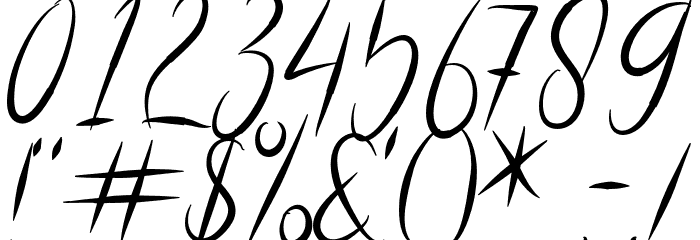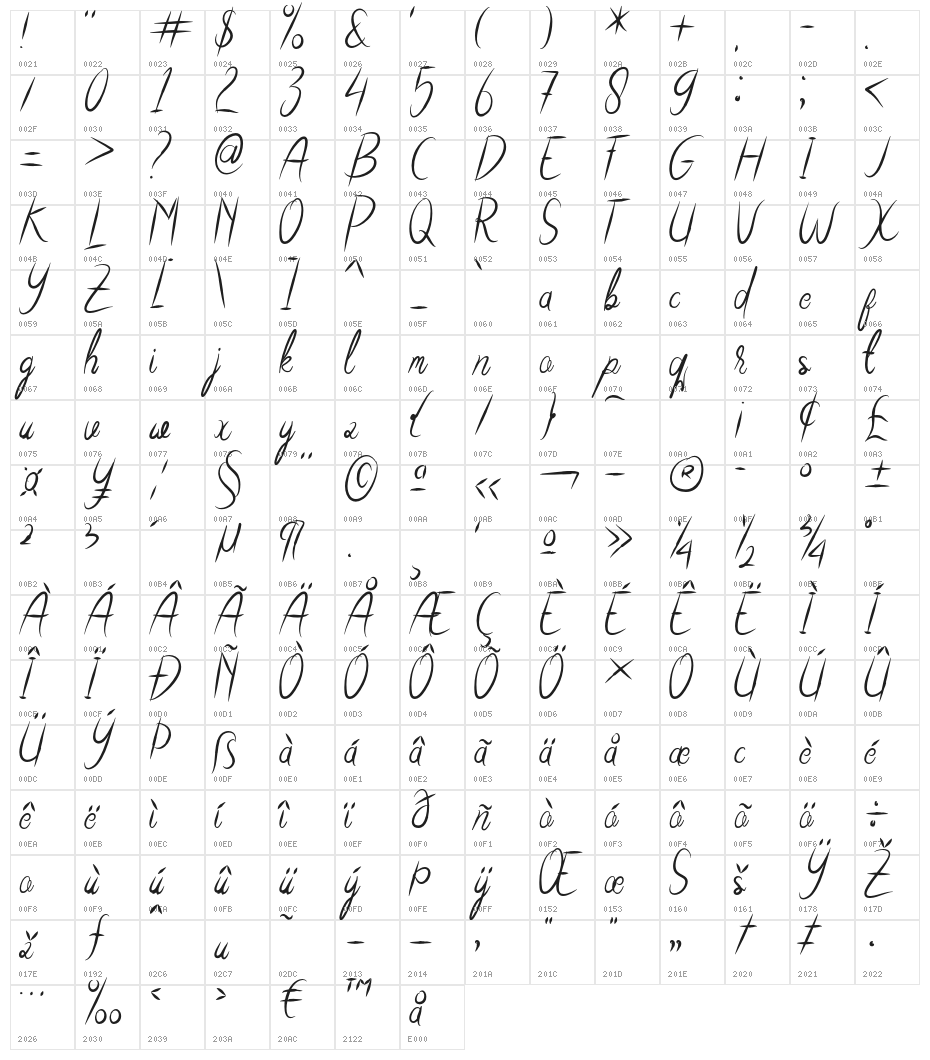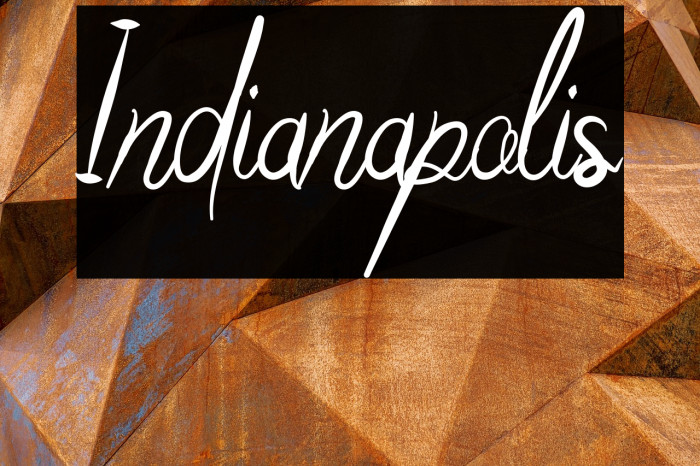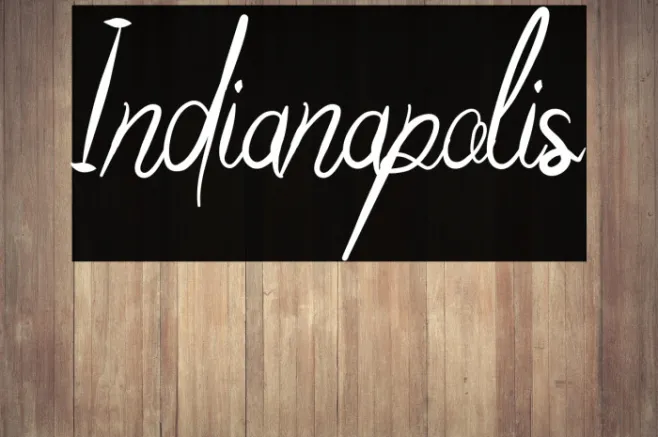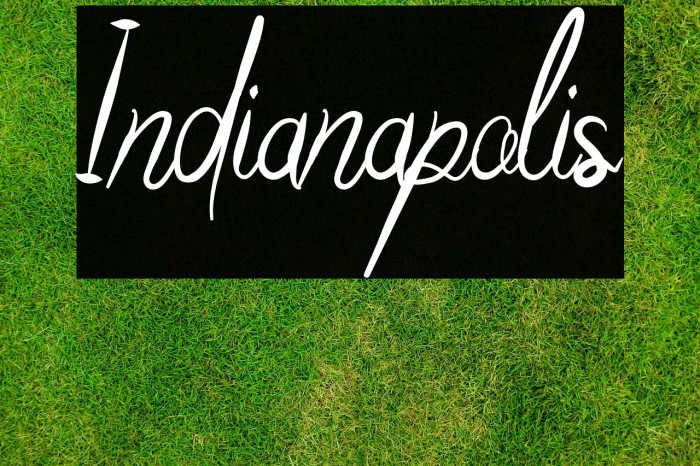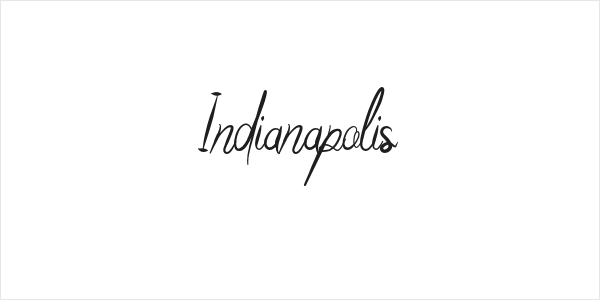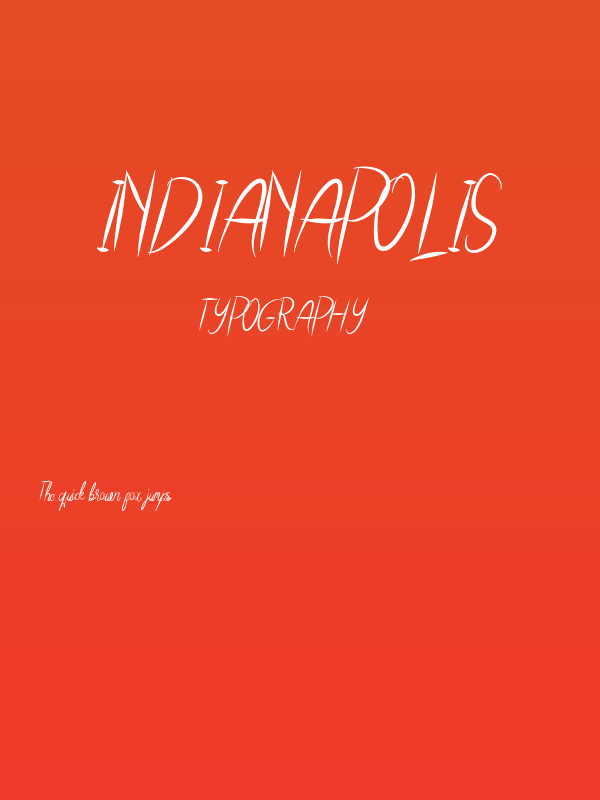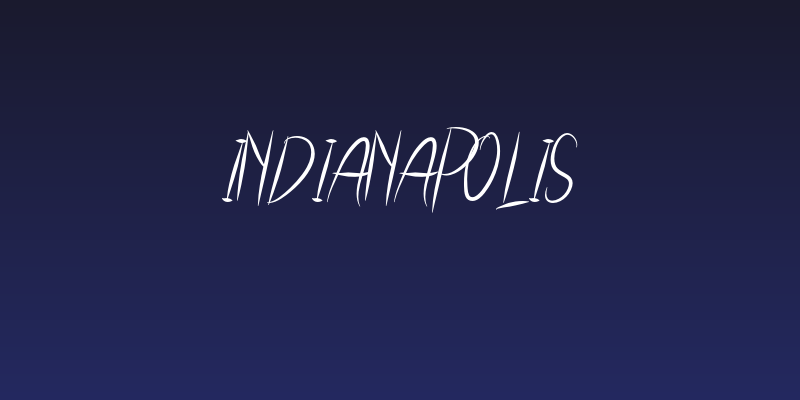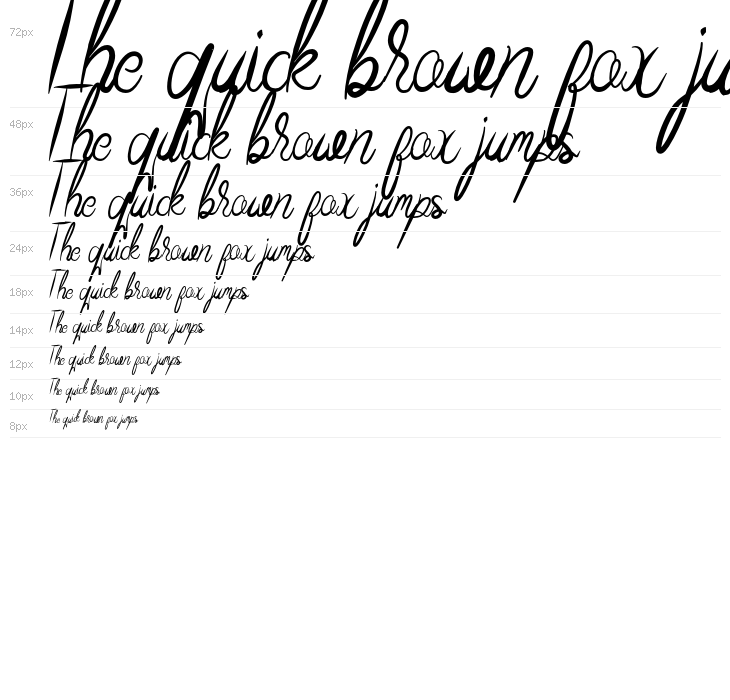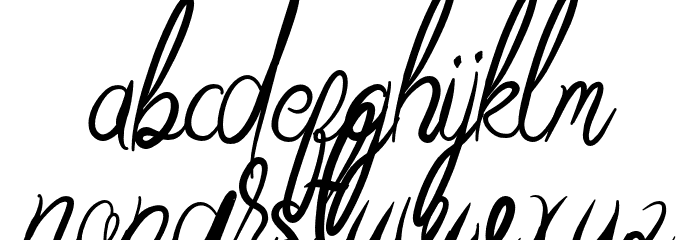
Indianapolis Font
Indianapolis Description
This font exhibits a flowing, cursive style with elegant, elongated strokes that give it a sophisticated and artistic appearance. The uppercase letters are tall and slender, with a slight slant that adds a dynamic feel. The lowercase letters maintain a consistent flow, connecting smoothly in a way that mimics natural handwriting. Numbers and special characters are crafted with the same fluidity, ensuring a cohesive look across all elements. The overall design is both graceful and expressive, making it suitable for creative and formal applications.
| Proposed Projects | Ideal for wedding invitations, greeting cards, personal branding, and artistic projects. |